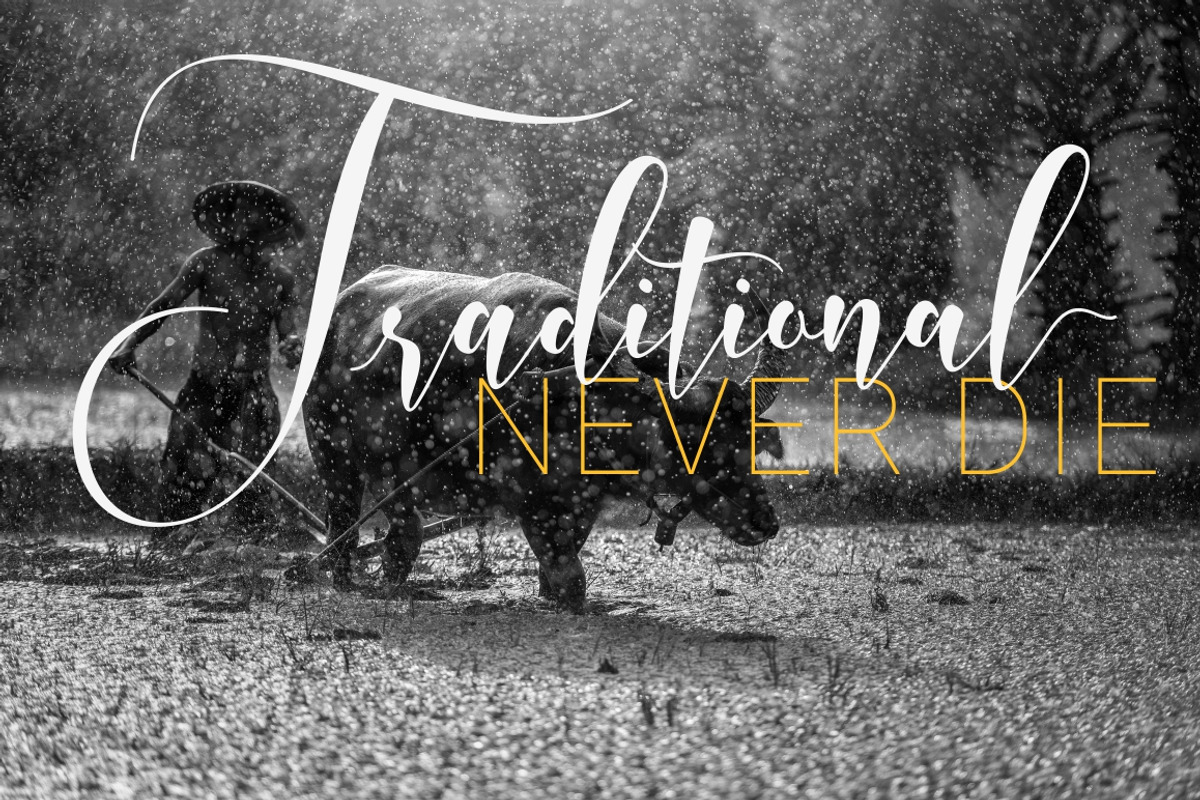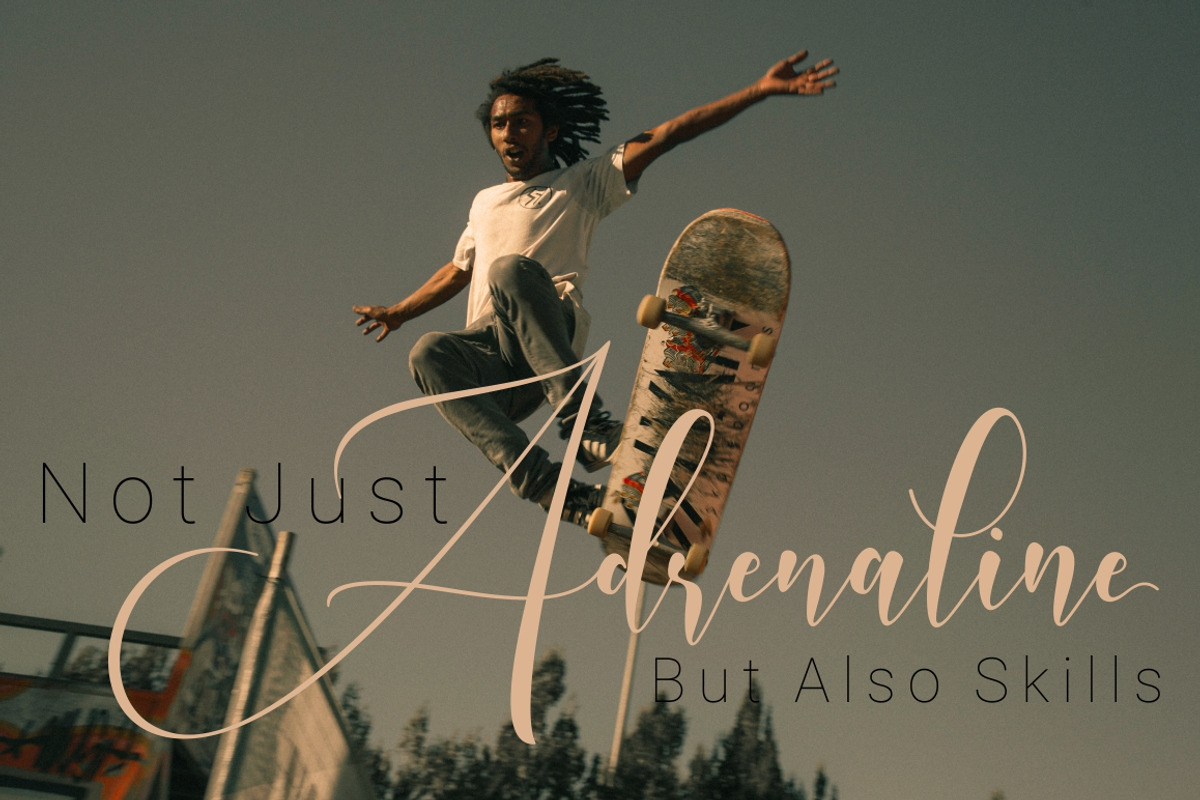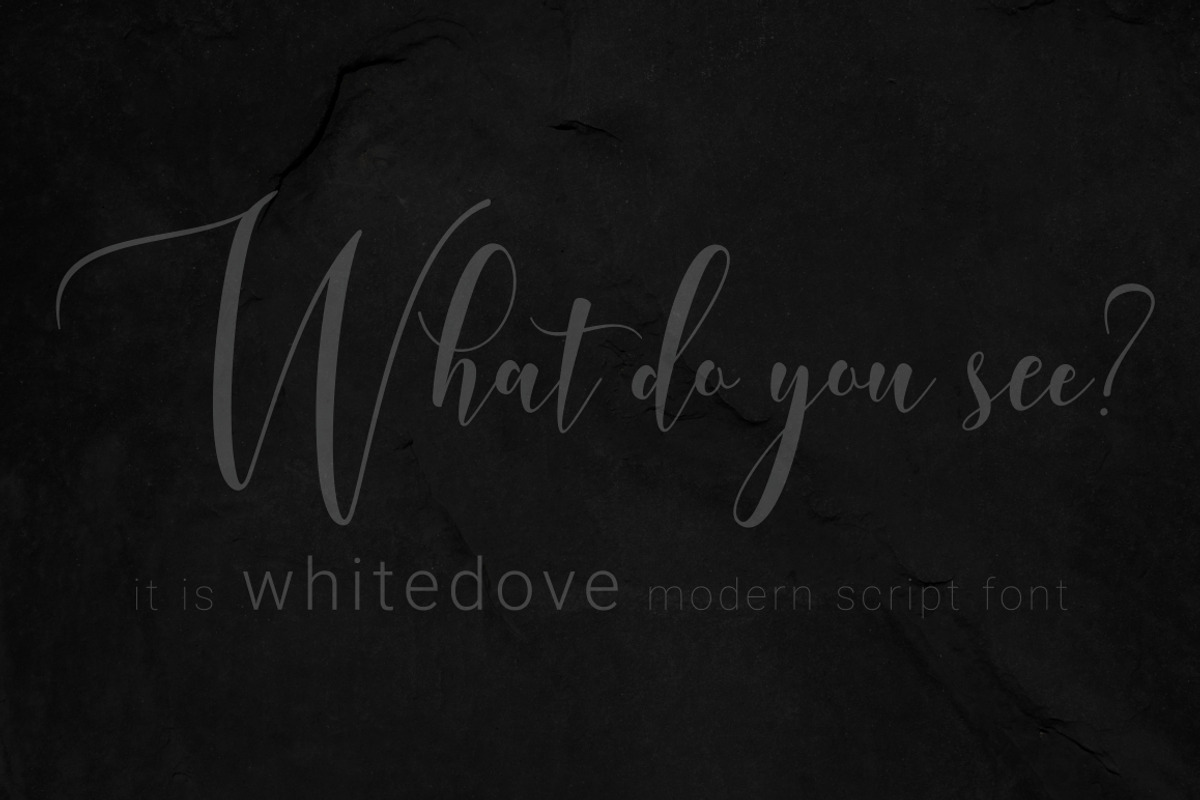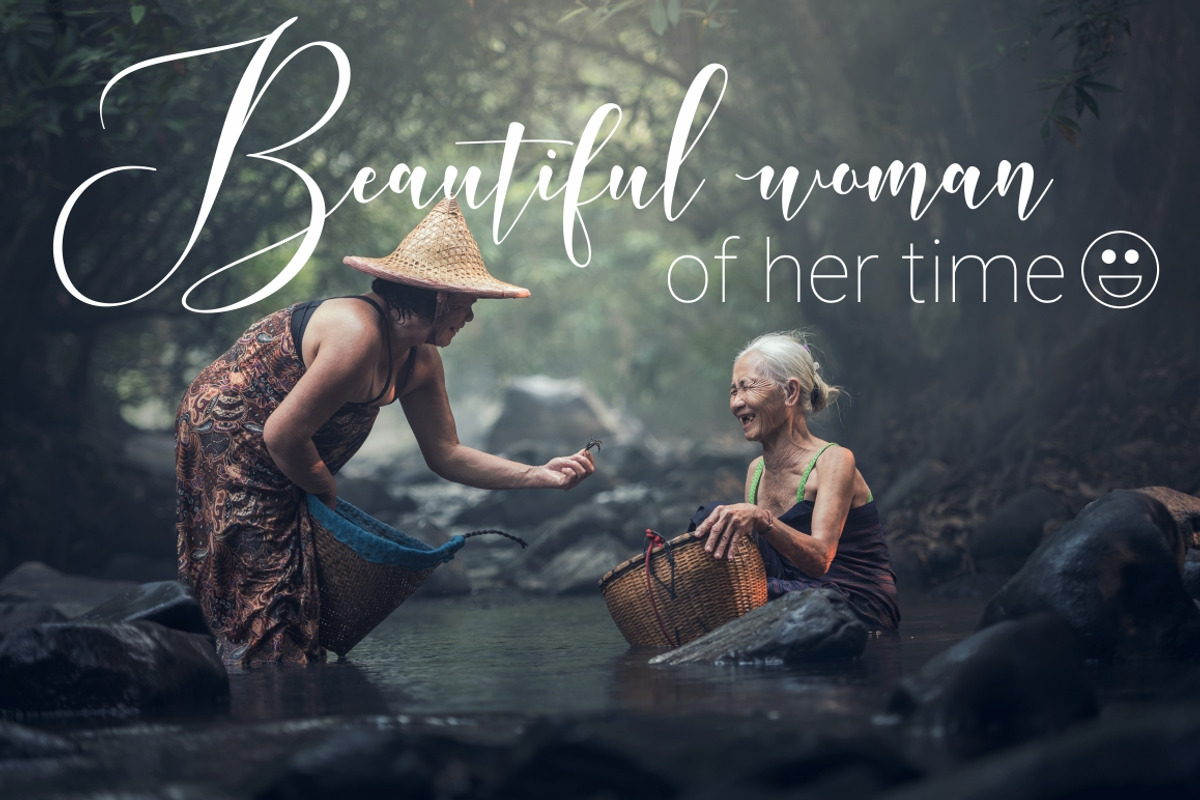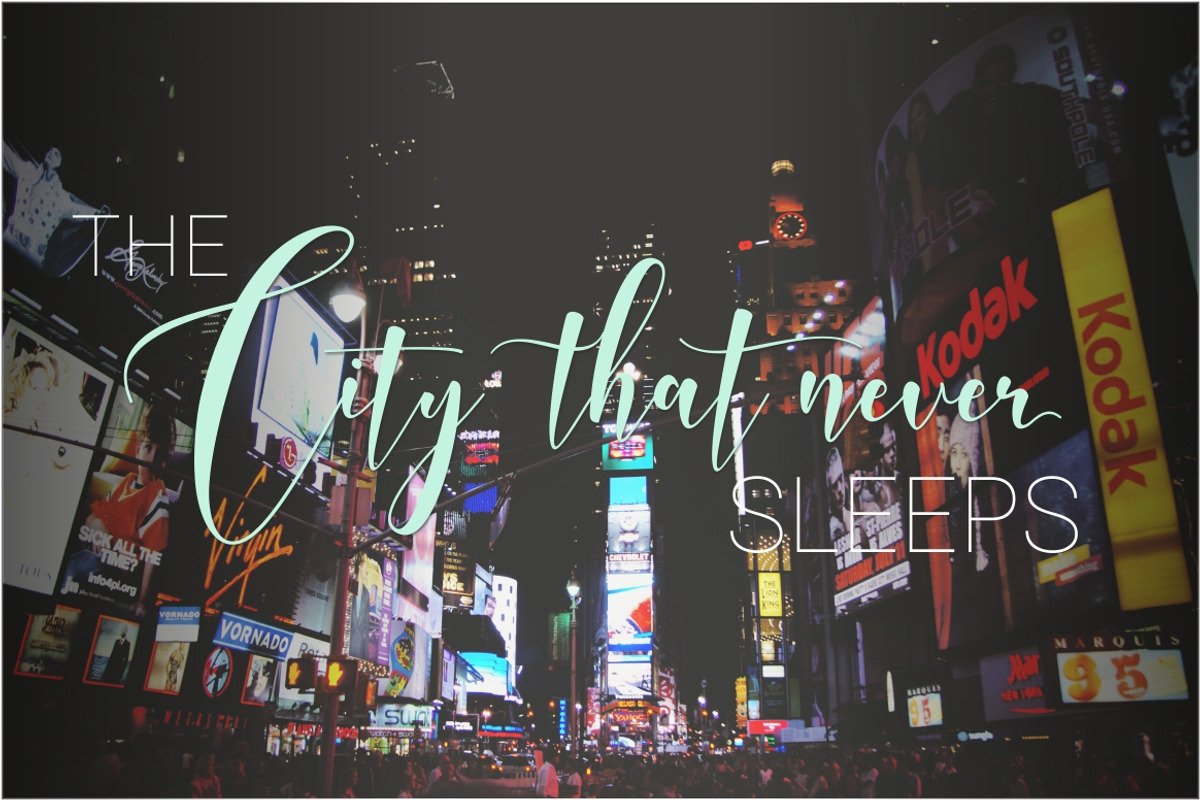
Whitedove Modern Script - UPDATE!
Whitedove font have just been updated
What's new? Now in uppercase available 1 set Alternative Glyphs, so they can be changed according to your taste and also the addition of several Latin Glyphs.
Whitedove Modern Script is a modern script font with a sweet and smooth handwritten style. Present to you to complete your colections of script font. This font has been enriches with additional alternates characters up to 650 glyphs.